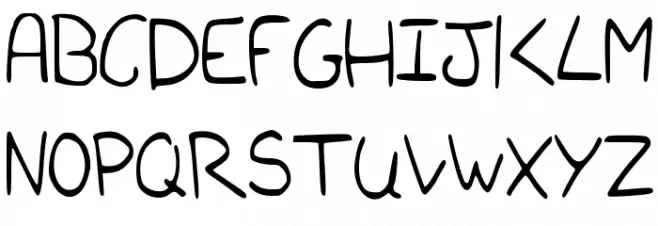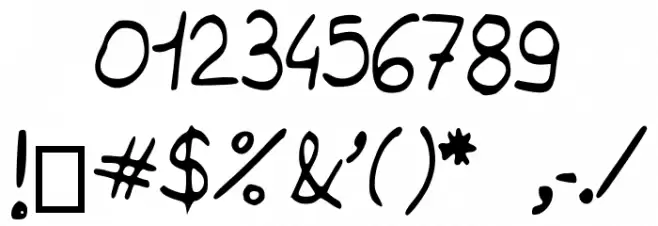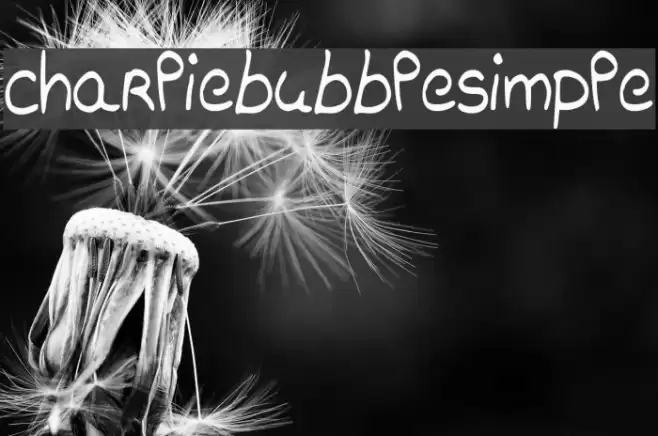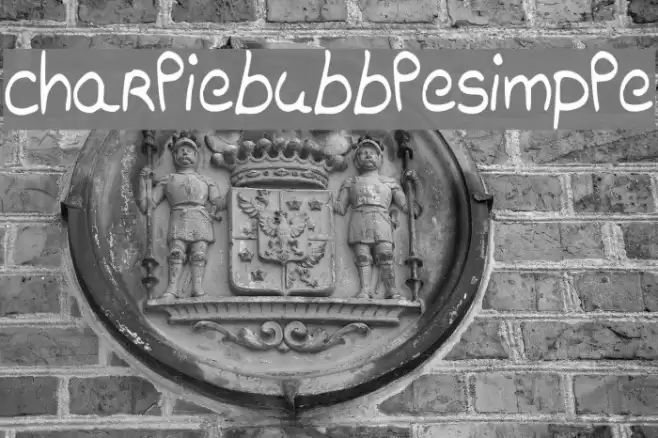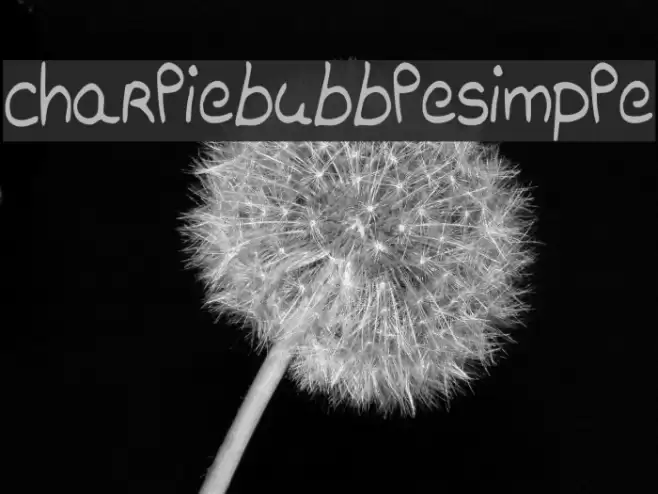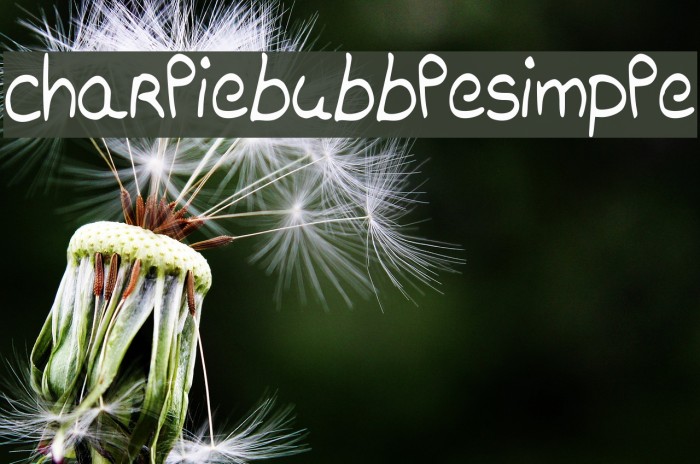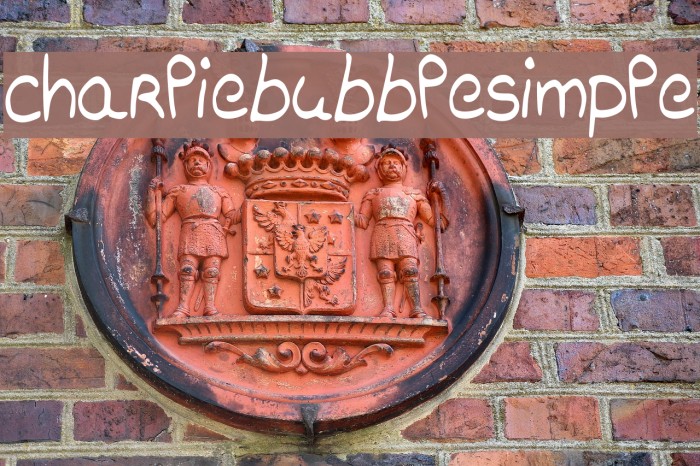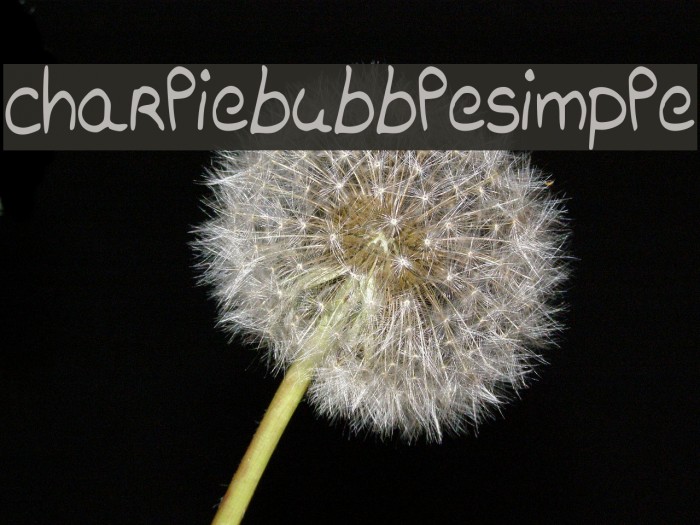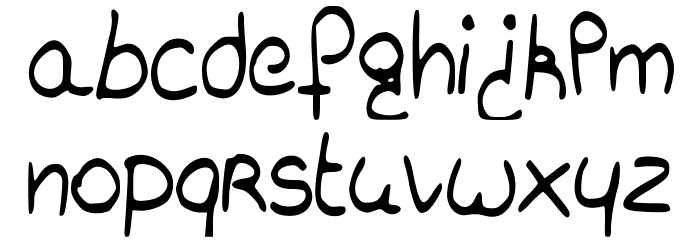
charliebubblesimple
This playful and whimsical font features a hand-drawn, casual style with rounded edges and a slightly uneven baseline, giving it a friendly and approachable appearance. The characters are bold and slightly condensed, with a consistent stroke width that maintains readability while adding a touch of charm. The lowercase letters have a unique, almost cartoonish quality, with some characters featuring distinctive loops and curves. The numerals and special characters follow the same playful design, making this font suitable for creative projects. Its informal style makes it perfect for children's books, playful branding, and any design that requires a touch of fun and personality.
A playful, hand-drawn font with rounded edges and a whimsical style.
- Proposed Projects: Children's books, playful branding, creative invitations, casual posters.
- Width: Condensed
- Overall Style: Playful
- Use Case: Headlines, Logos, Posters